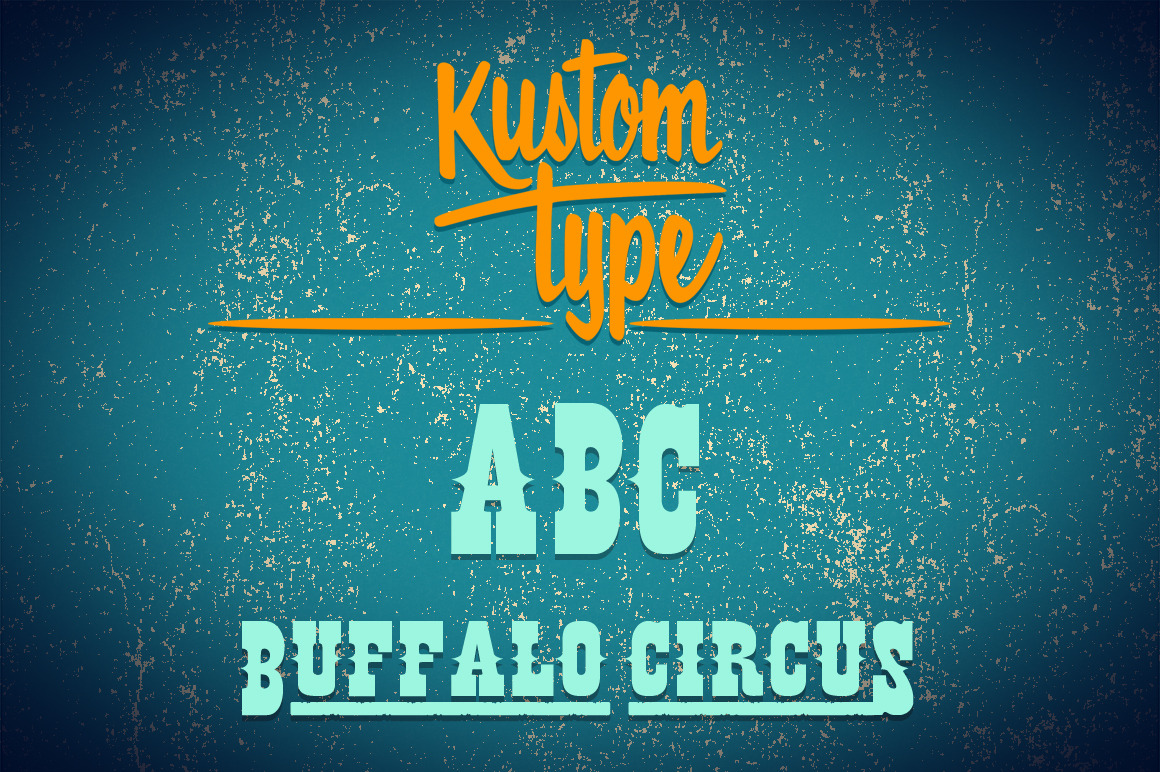
Buffalo Circus Font
Frederick Cody, as known as Buffalo Bill, and his renowned travelling Western Circus are now celebrated through the creation of the Buffalo Circus and the Buffalo Western type fonts, both developed quite in the spirit of the stirring wood type fonts from the 19th century. All characters are fully hand traced and vectorized and provided with appealing glyphs and cool catchwords.